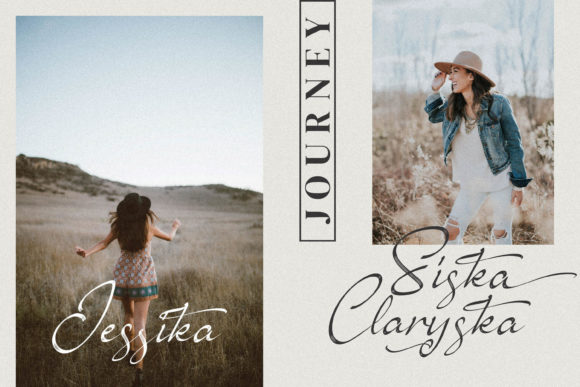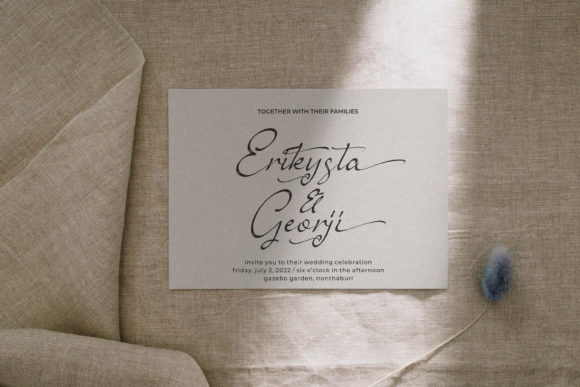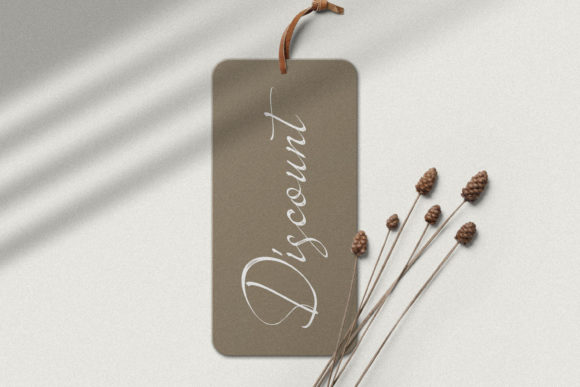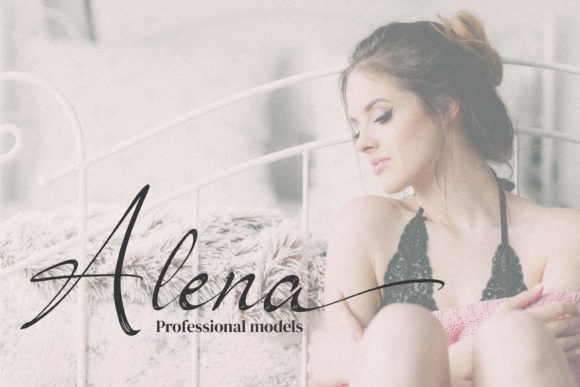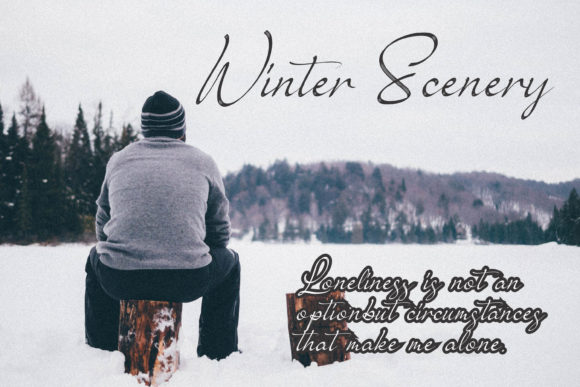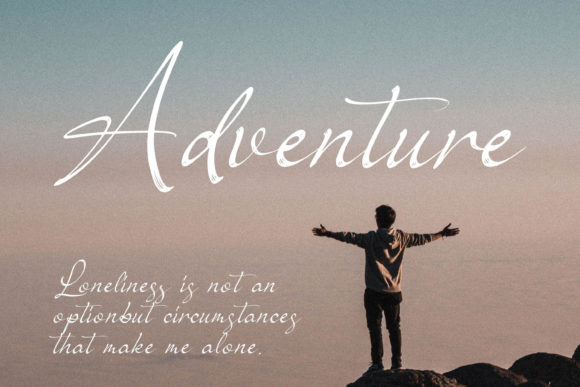
Introducing Brush Renytha Font: The Epitome of Elegance and Sophistication
In the realm of typography, few fonts manage to strike a balance between classic elegance and modern flair. Brush Renytha Font is one such gem that has captured the hearts of designers and crafters alike. This exquisite handwritten font is masterfully designed to become a true favorite among typography enthusiasts. With its classy calligraphic influences and contemporary feel, Brush Renytha Font is the perfect addition to any design project.
A Perfect Blend of Tradition and Modernity
Brush Renytha Font boasts a unique blend of traditional calligraphy and modern sensibilities. Its elegant strokes and fluid movements evoke a sense of sophistication and refinement, making it ideal for designs that require a touch of luxury. Whether you’re working on a branding project, wedding invitation, or packaging design, Brush Renytha Font is sure to elevate your work to new heights.
One of the standout features of Brush Renytha Font is its PUA (Private Use Area) encoding. This means that you can access all the glyphs and swashes with ease, giving you unparalleled creative control over your designs. With PUA encoding, you can effortlessly navigate through the font’s extensive character set, including alternates, ligatures, and ornaments. This feature makes Brush Renytha Font incredibly versatile and user-friendly.
Brush Renytha Font offers a world of creative possibilities for designers and crafters. Its elegant script can be used for a wide range of projects, from:
- Digital graphics and social media assets
Whether you’re a professional designer or a crafty DIY enthusiast, Brush Renytha Font is sure to inspire your creativity and help you achieve your design goals.
Why Choose Brush Renytha Font?
So, what sets Brush Renytha Font apart from other fonts in its category? Here are just a few reasons why designers and crafters love this font:
- Unique and elegant design: Brush Renytha Font boasts a distinctive and sophisticated style that will elevate your designs.
- Highly versatile: With PUA encoding and an extensive character set, Brush Renytha Font can be used for a wide range of projects.
- User-friendly: The font’s intuitive design and PUA encoding make it easy to use, even for those without extensive design experience.
- Contemporary and fresh: Brush Renytha Font’s modern sensibilities ensure that your designs will look fresh and up-to-date.
In conclusion, Brush Renytha Font is a true gem in the world of typography. Its exquisite handwritten design, classy calligraphic influences, and contemporary feel make it the perfect choice for designers and crafters seeking to add a touch of elegance and sophistication to their work. With its PUA encoding and extensive character set, Brush Renytha Font offers endless creative possibilities. Whether you’re working on a professional design project or a personal crafting endeavor, Brush Renytha Font is sure to become your new favorite font.